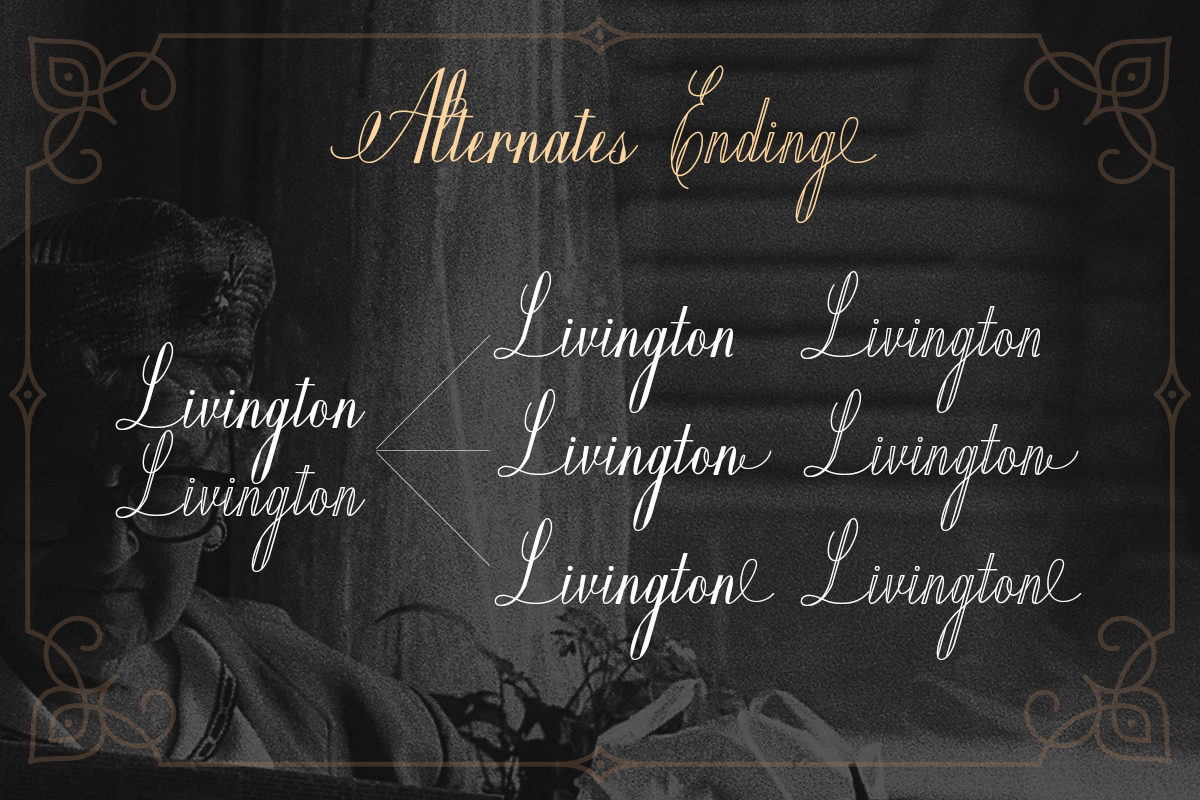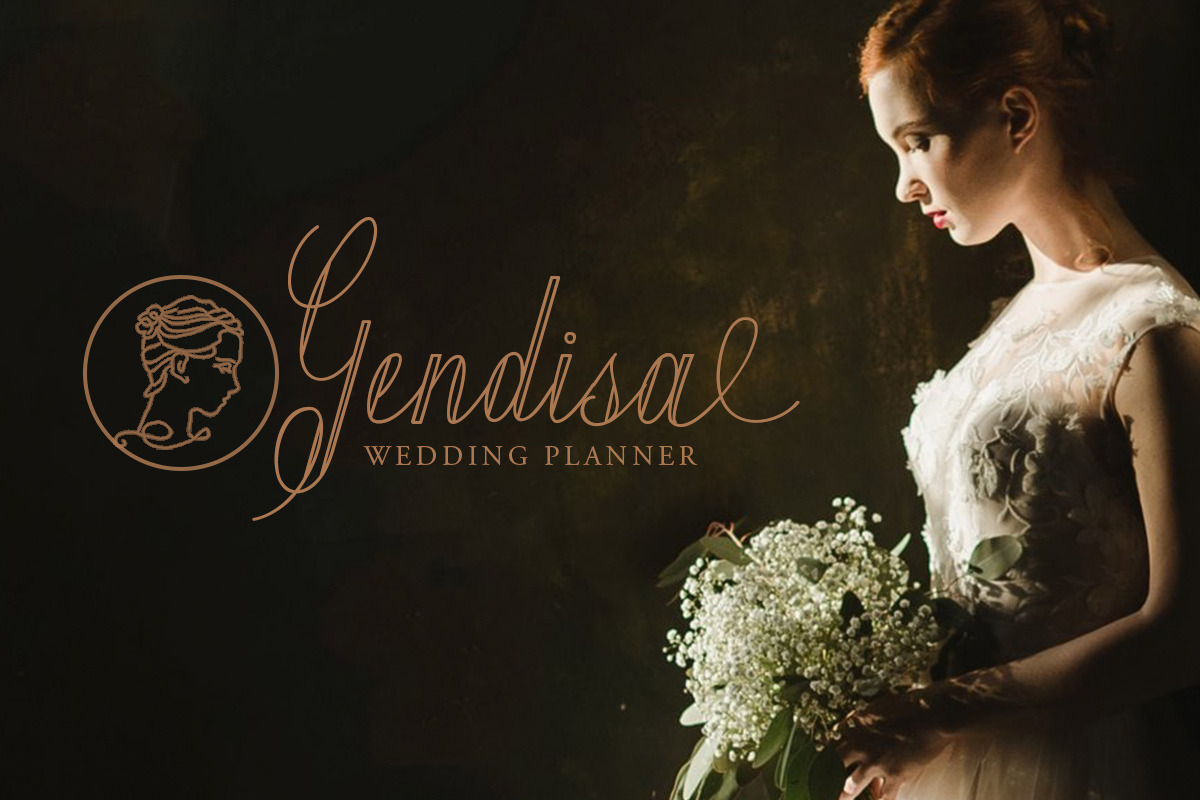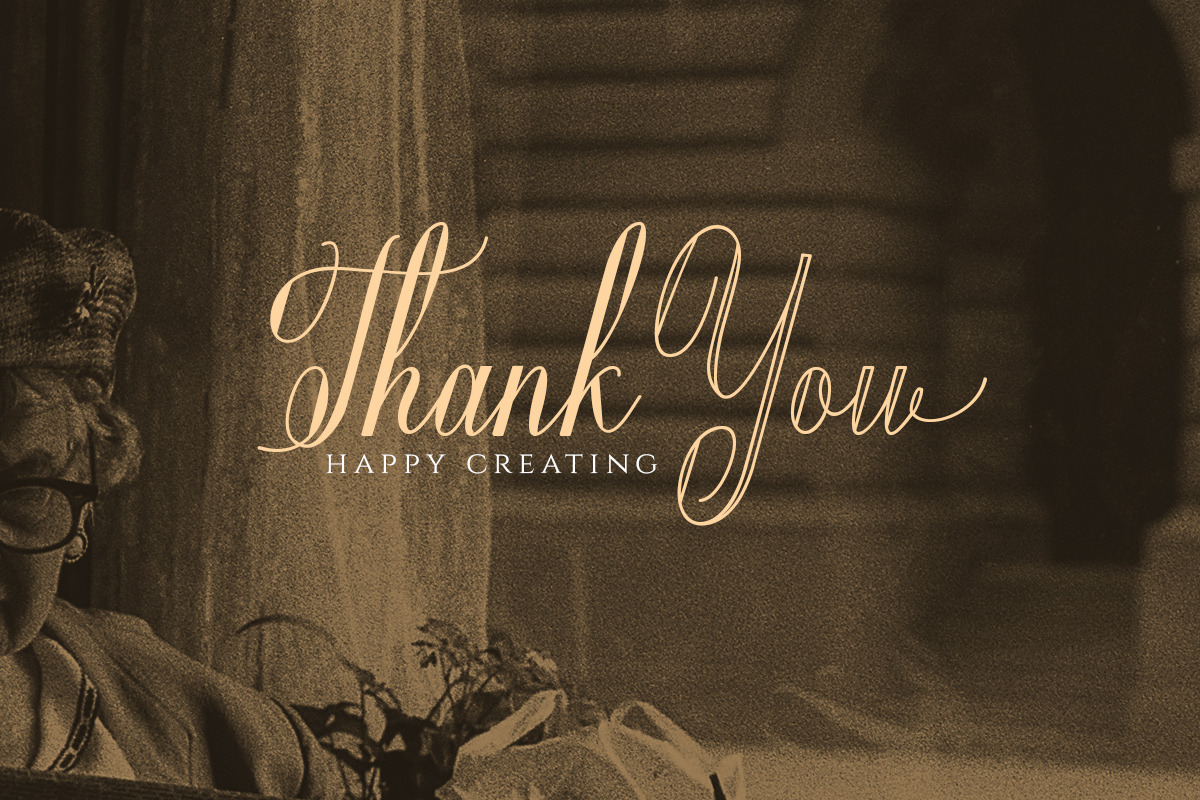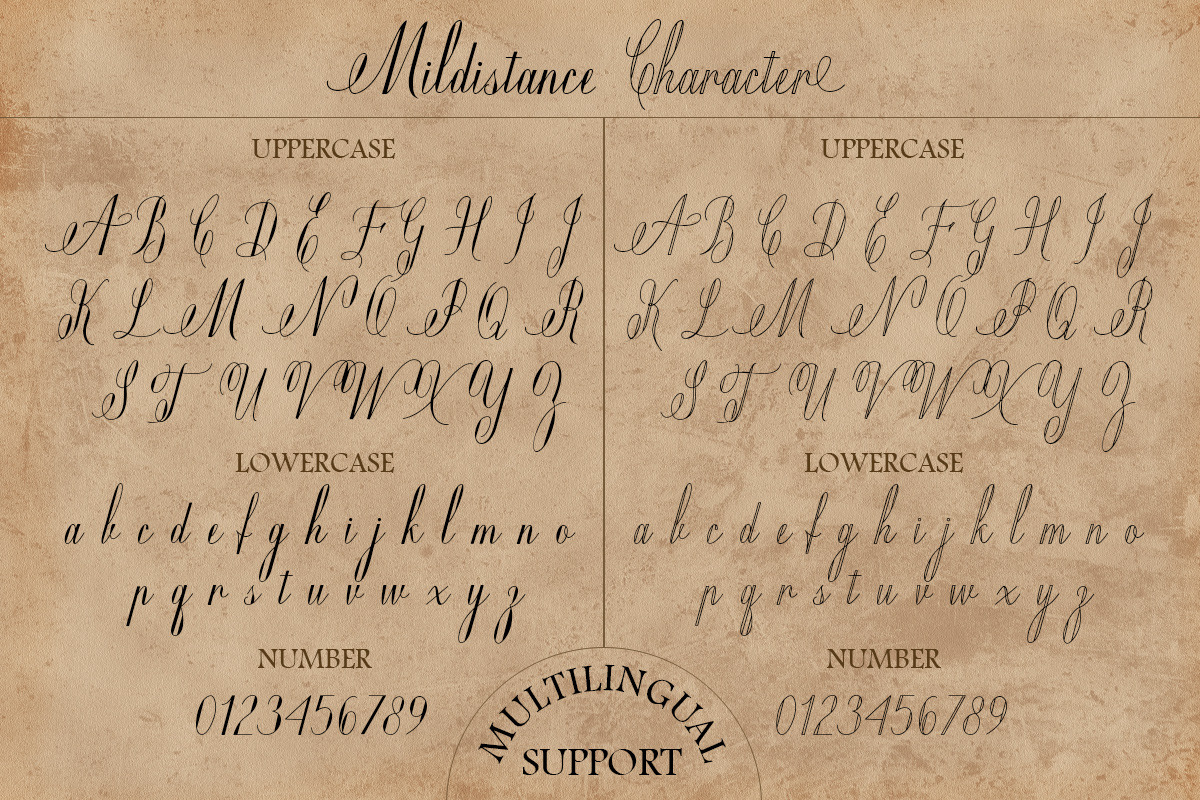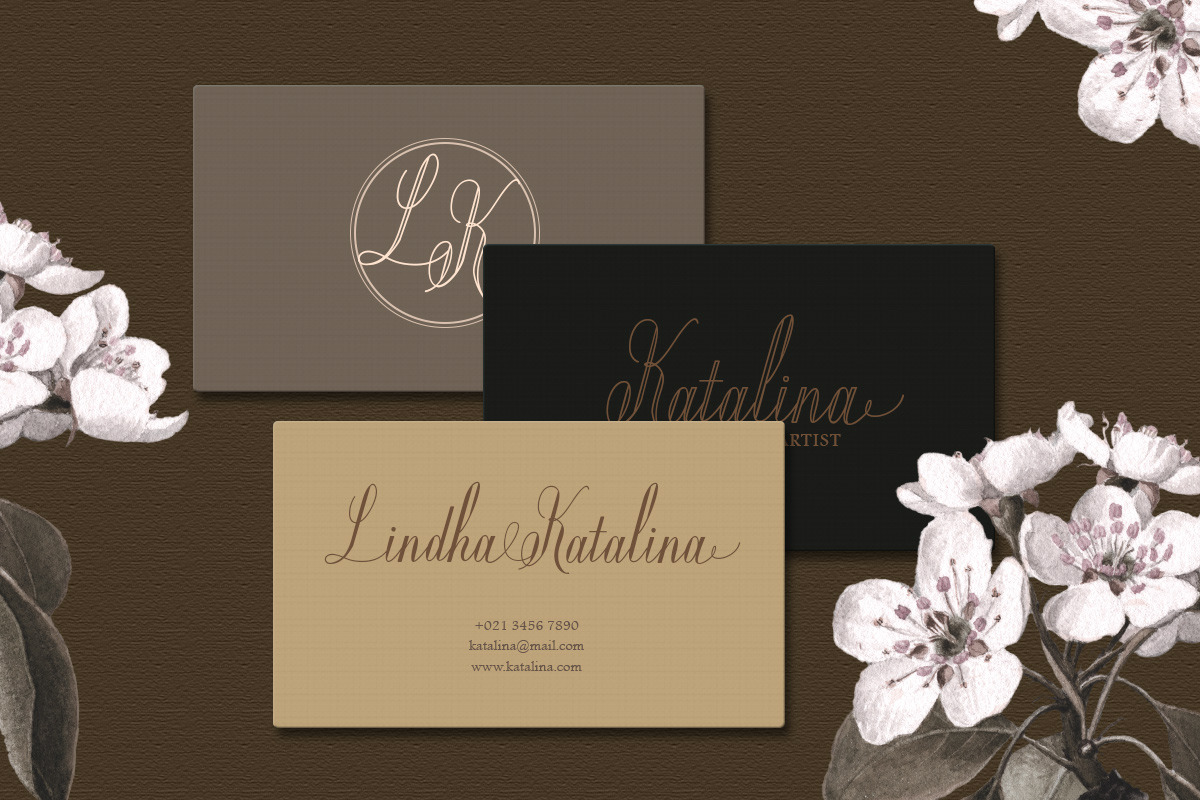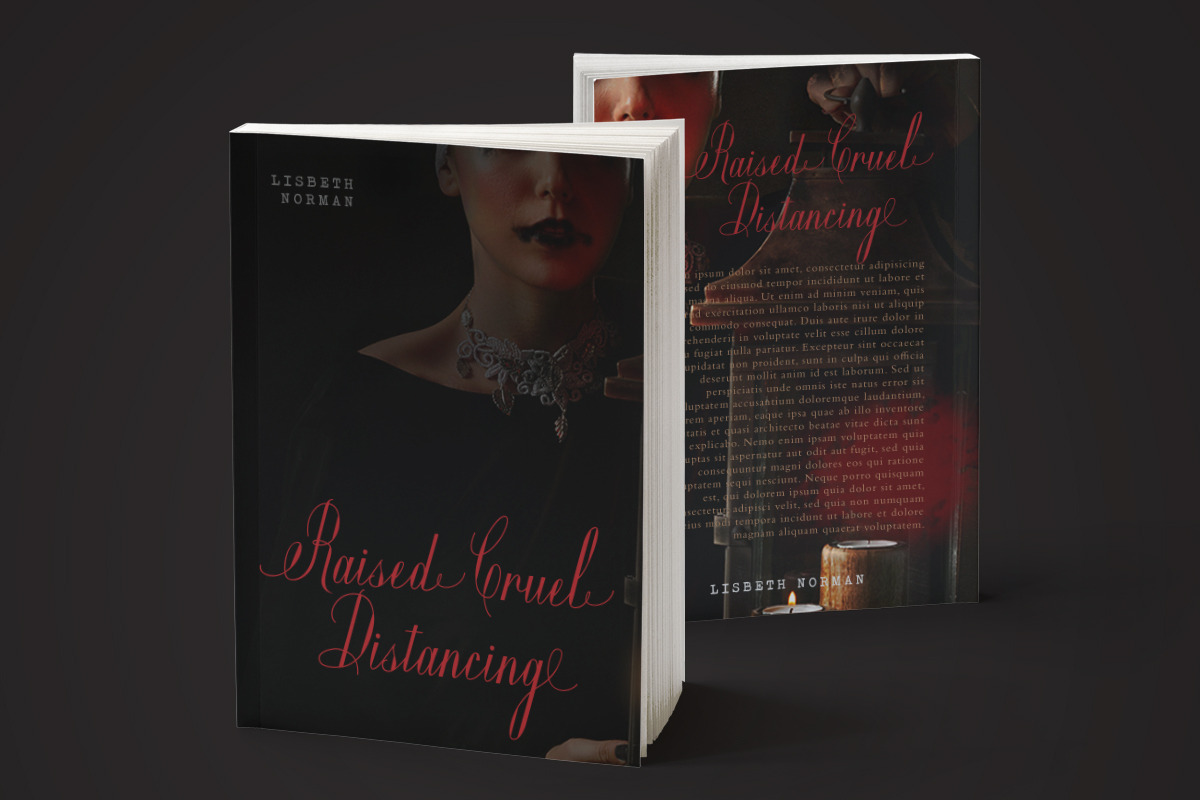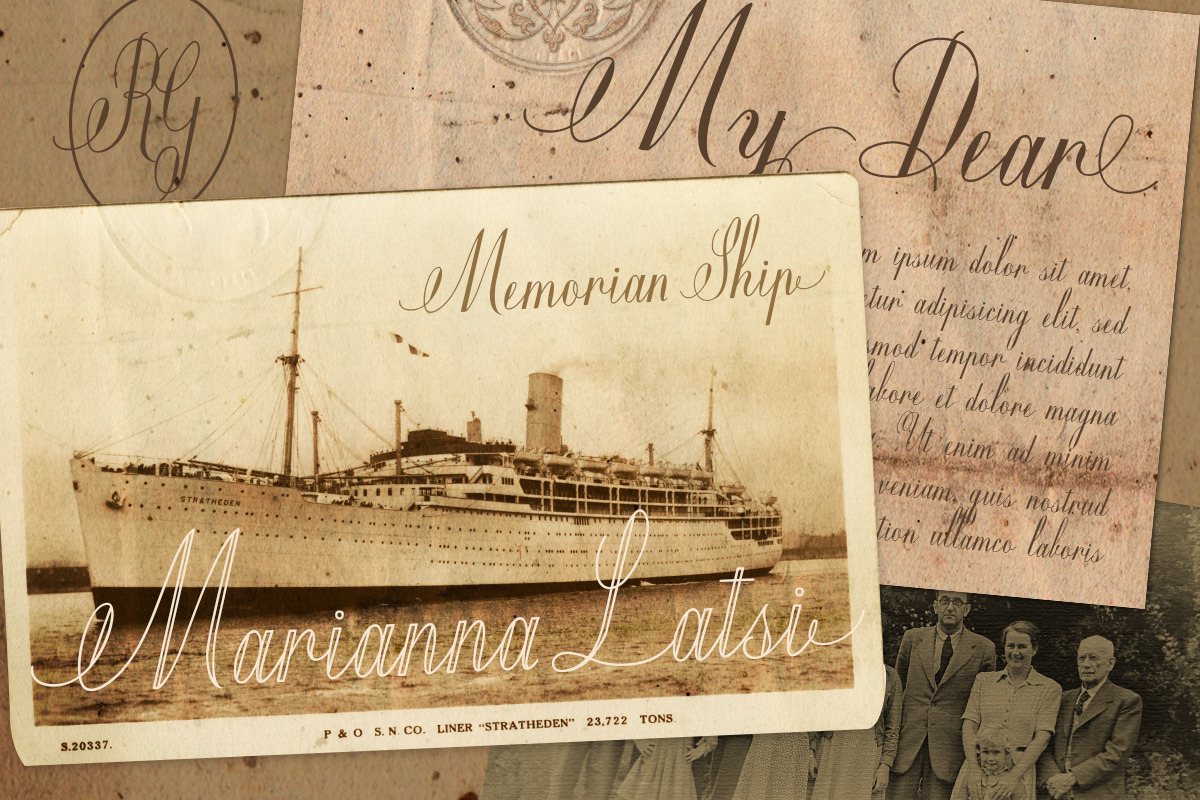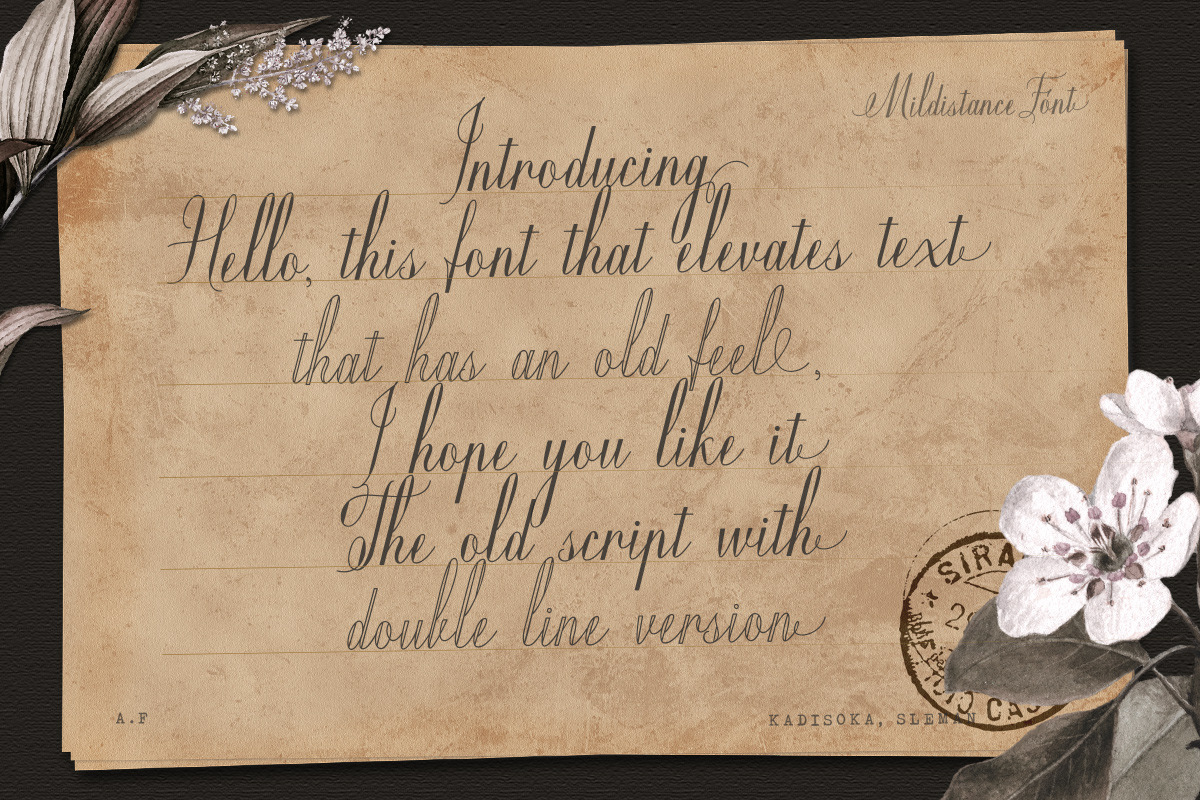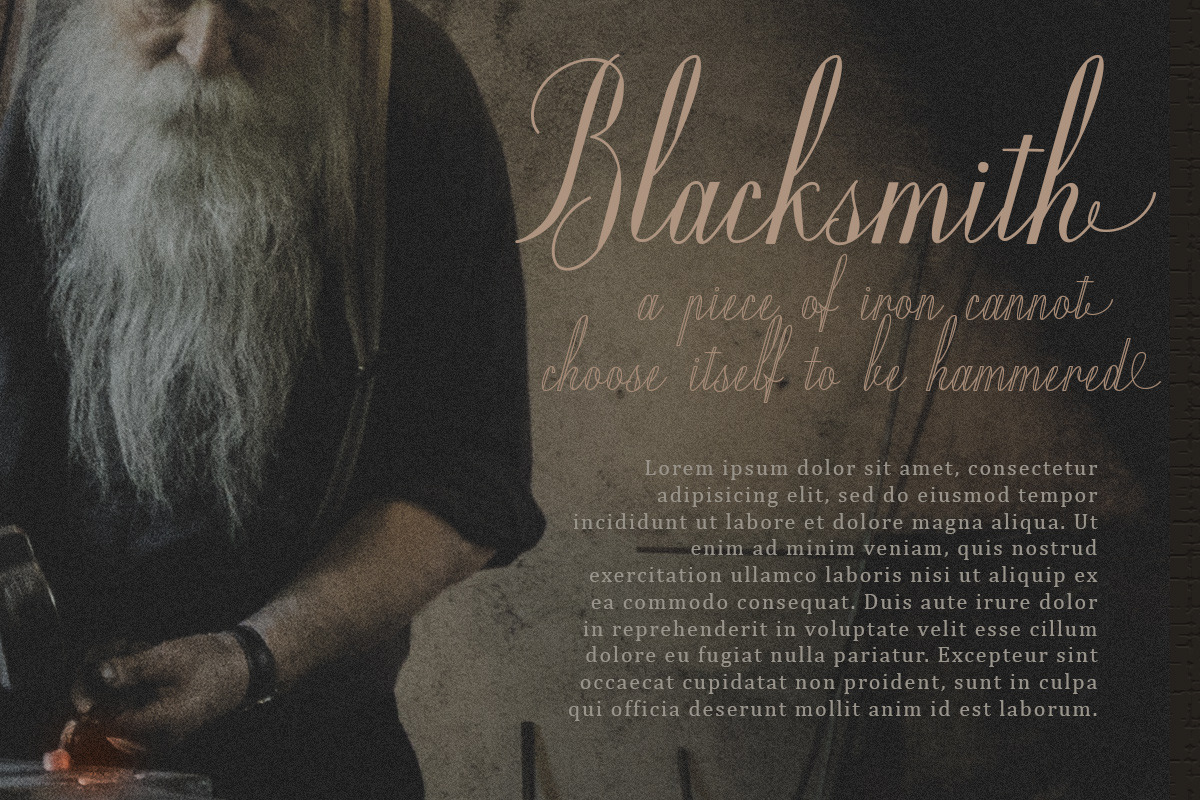
Mildistance - Old Script
Introducing, Mildistance Script - an old and classic style script font. The look of the font will give you nostalgic feel, very suitable for old school theme design and the other various formal forms such as invitations, labels, logos, magazines, books, greeting / wedding cards, packaging, fashion, make up, stationery, novels, labels or any type of advertising purpose.
- alternates and ligatures
- swashes